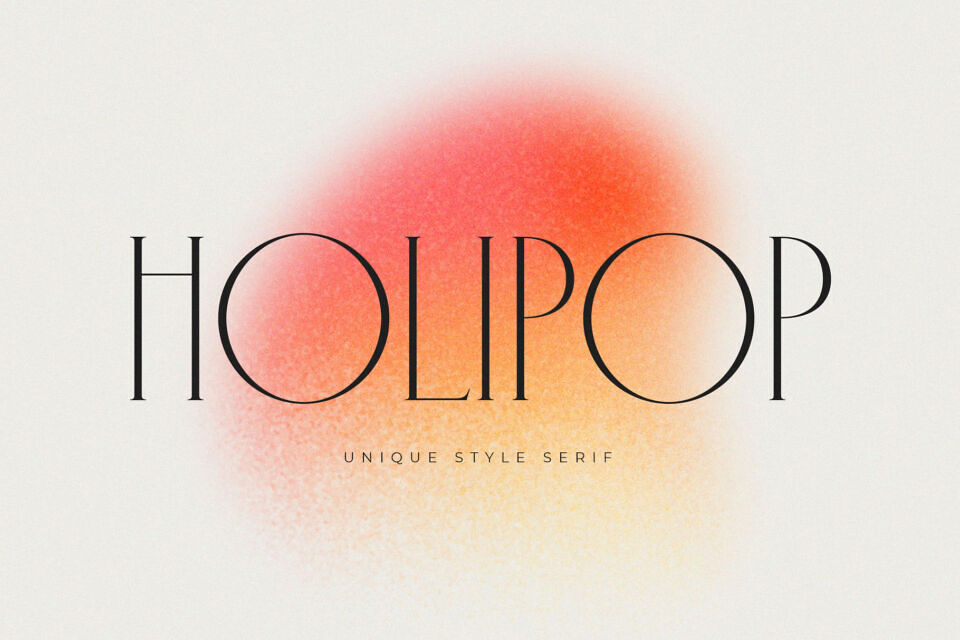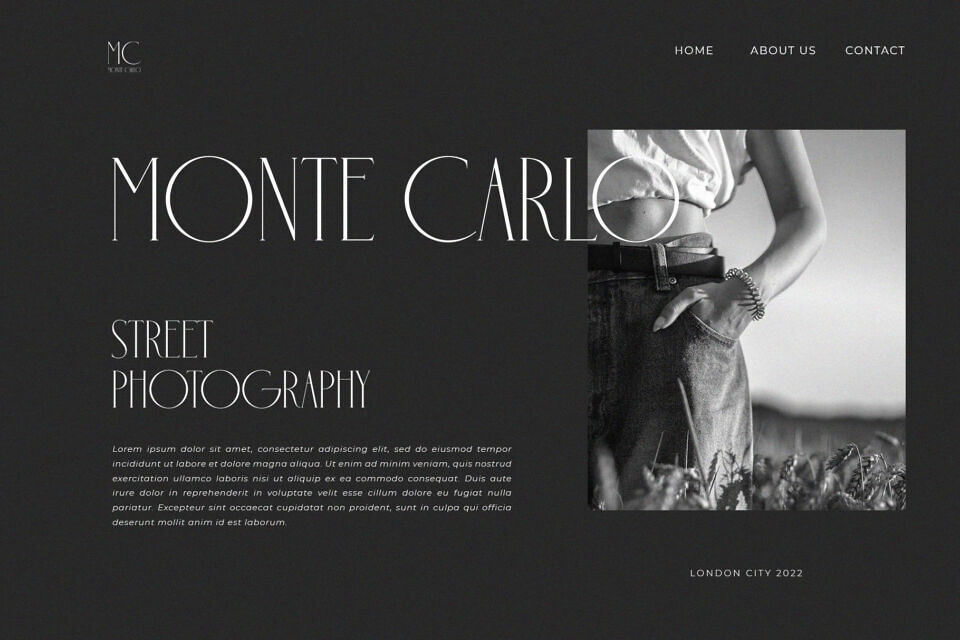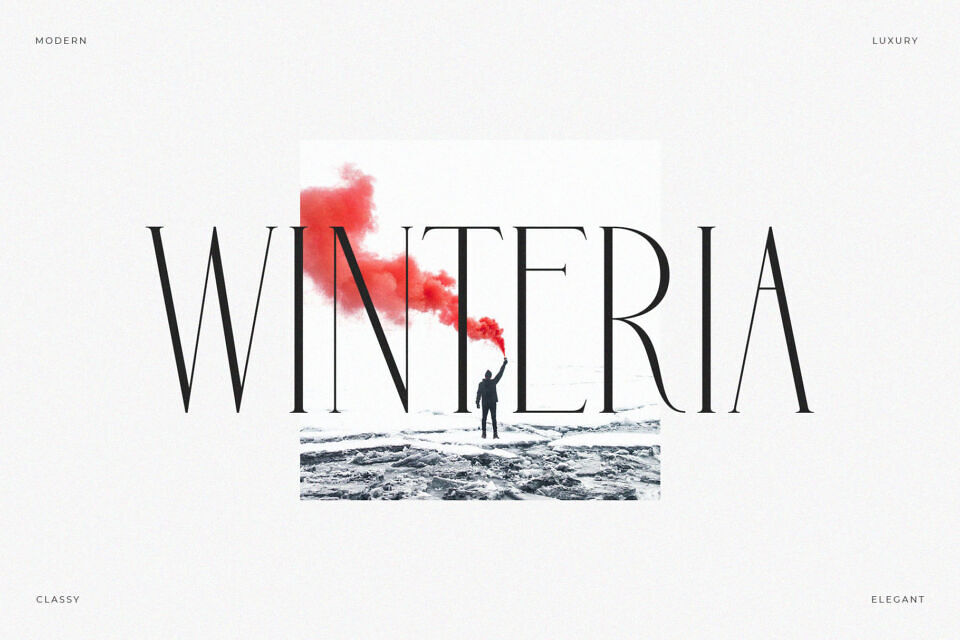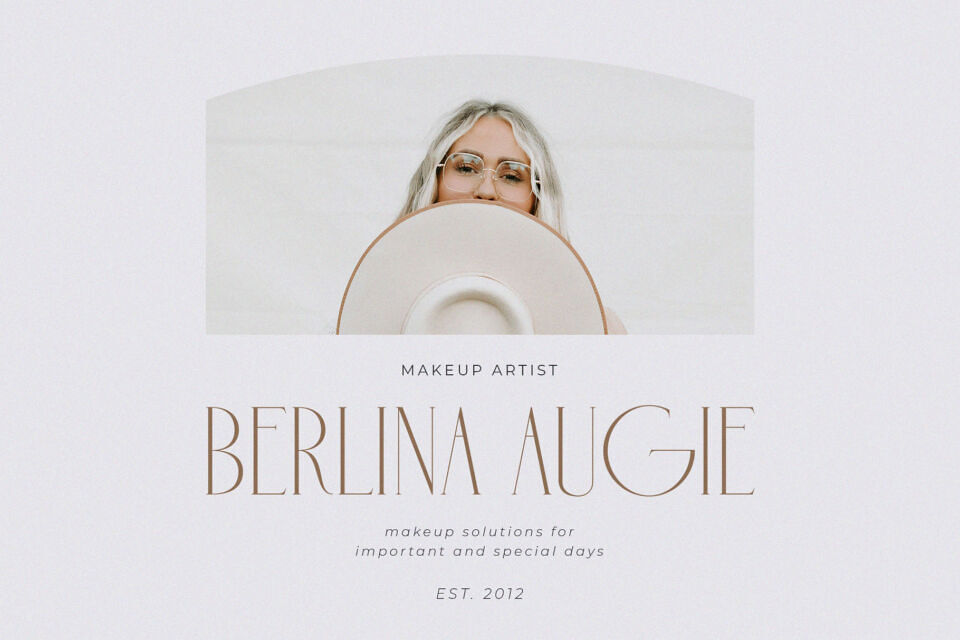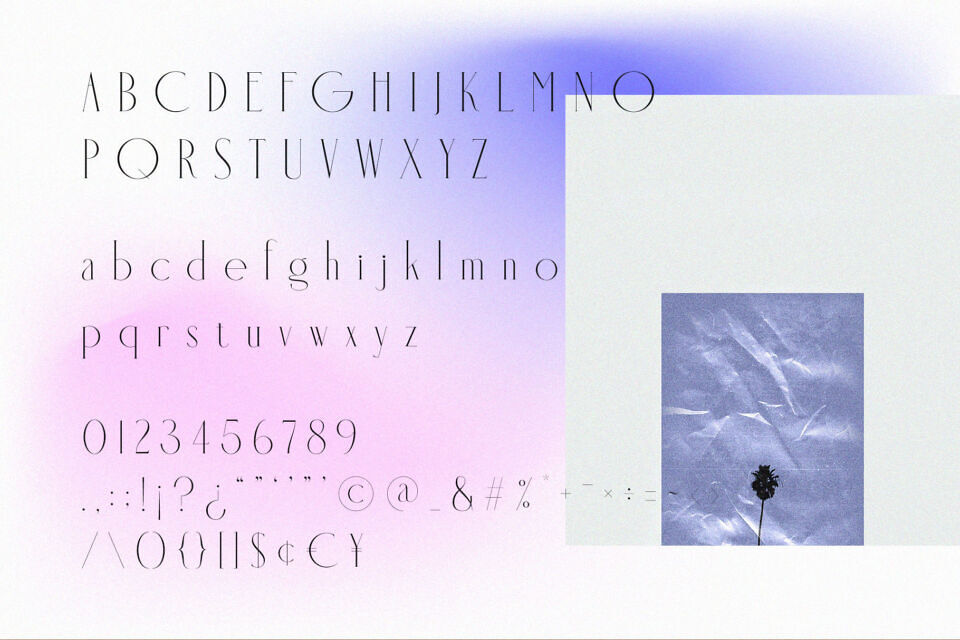
Holipop Font
Holipop is a modern and elegant typeface, best used as a display for headings, logos, branding, magazines, product packaging and invitations. Holipop come with clean lines and smooth curves give any project an extra touch of class.